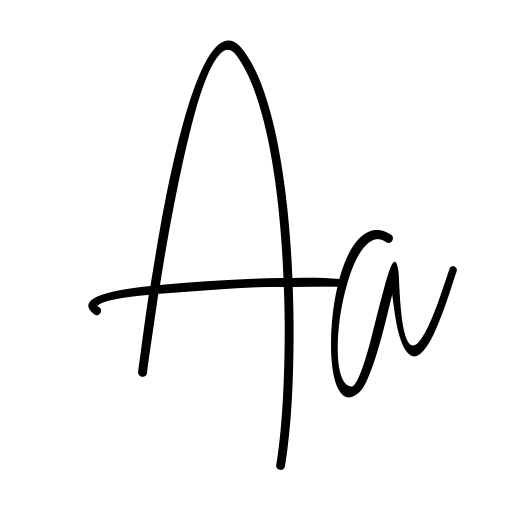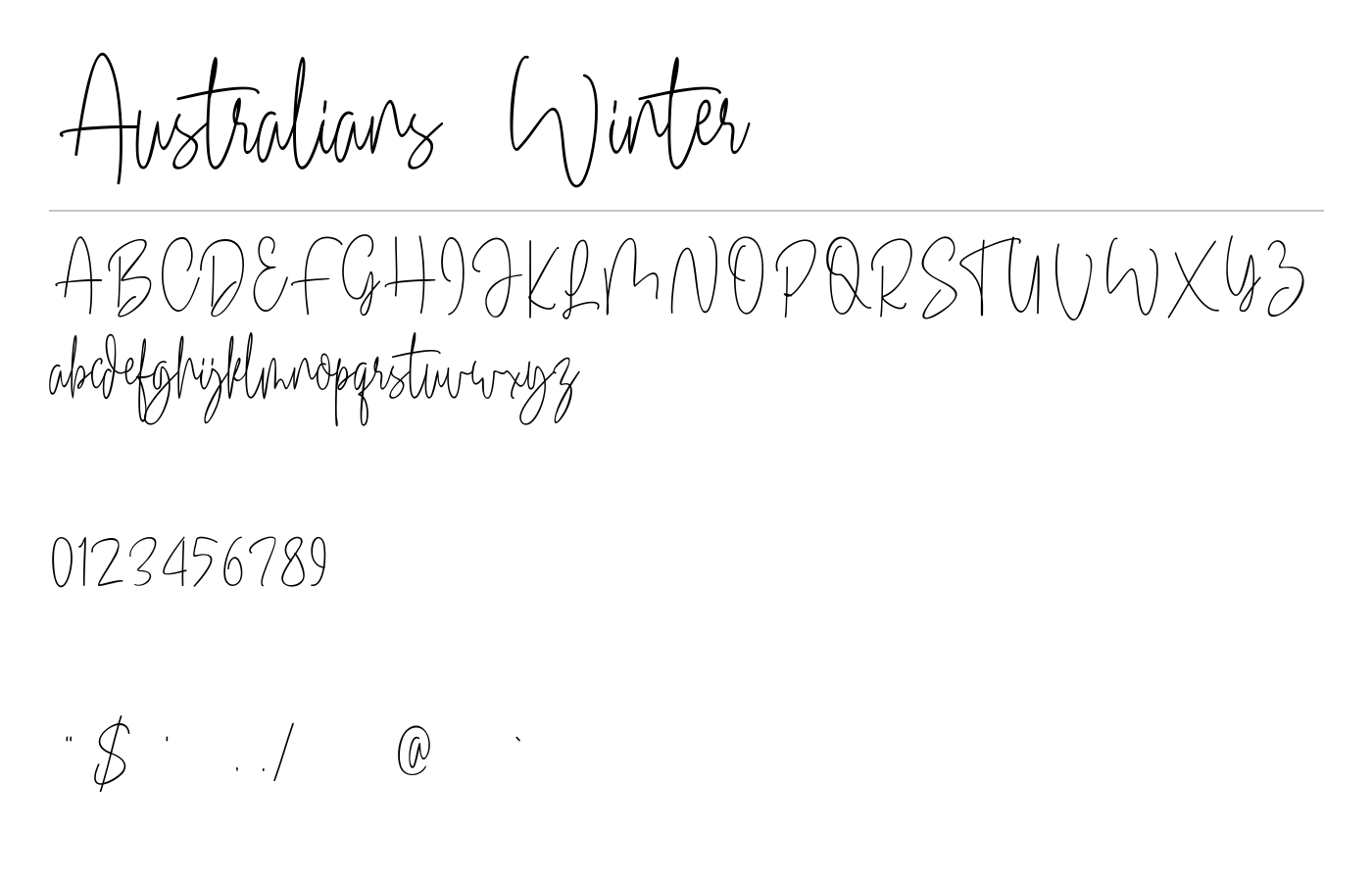
Australians Winter is a delicate, handwritten script font with a light and airy feel, featuring tall, slender letterforms and smooth, flowing lines. Its elegant yet casual style makes it perfect for personal branding, invitations, and creative projects that seek a touch of warmth and individuality. This font works especially well in headlines and logos where a friendly, approachable personality is desired.
Australians Winter Font
About Australians Winter Font